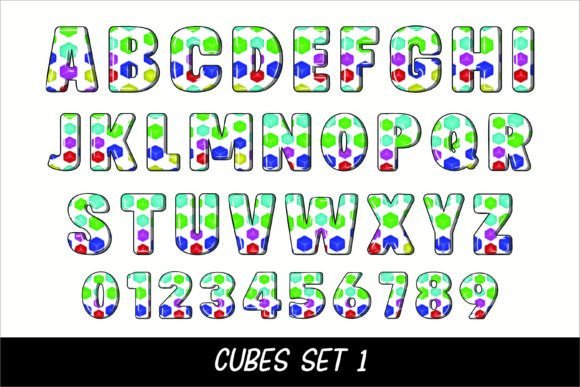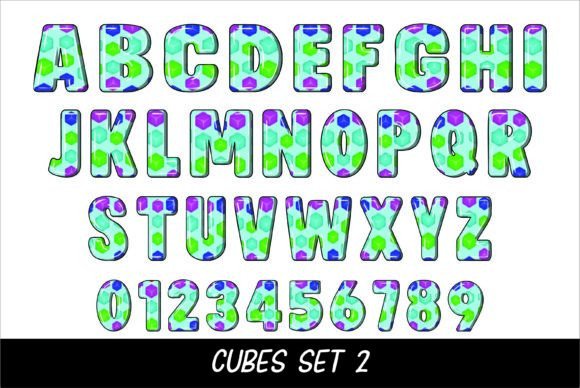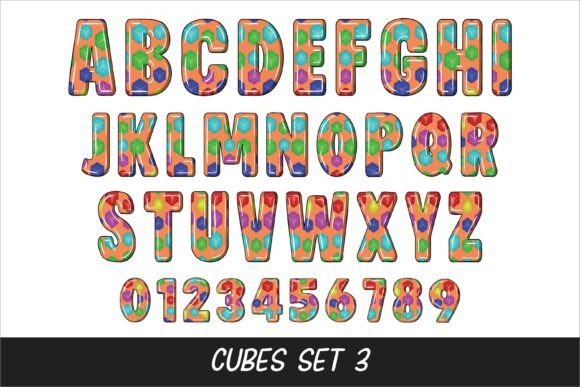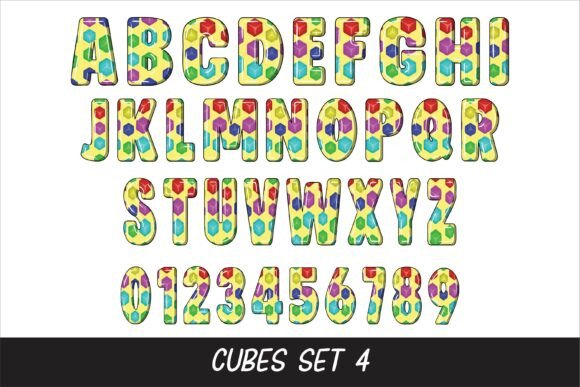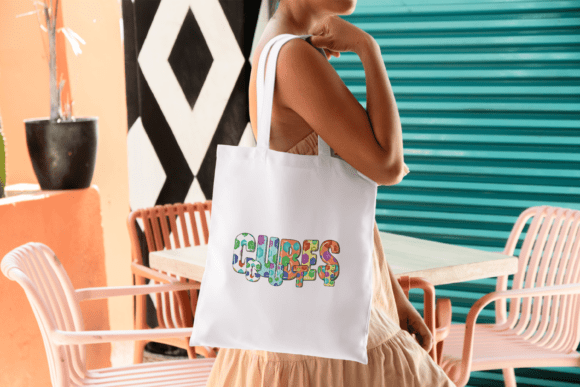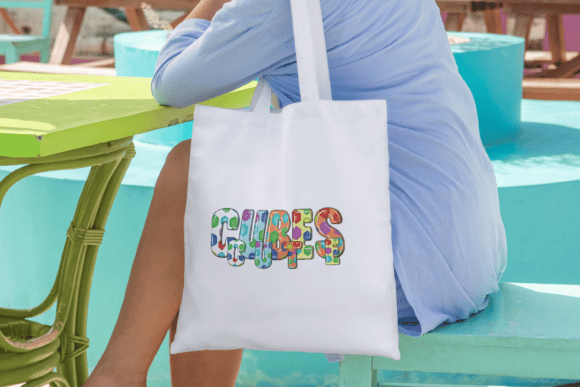
Introducing Cubes 3D Font: A Vibrant and Playful Typeface
Are you looking for a bold and eye-catching font to add a touch of fun and personality to your designs? Look no further than the Cubes 3D Font, a colorful and playful typeface that’s perfect for digital crafting, branding, and educational materials. In this article, we’ll explore the features and benefits of this unique font and how it can elevate your designs to the next level.
What is Cubes 3D Font?
Cubes 3D Font is a specialized, full-color 3D display color font that transforms each letter into a decorative, three-dimensional block filled with vibrant, patterned cubes. This highly decorative font is designed to create an immediately fun and dynamic aesthetic, making it ideal for designs that require a chunky, colorful, and engaging visual.
Key Features of Cubes 3D Font
- Bold and Playful Design: The Cubes 3D Font features a bold, rounded block structure that ensures high impact and makes it perfect for digital crafting, playful branding, and children’s educational materials.
- Vibrant and Patterned Cubes: Each letter is constructed from stacked blocks, creating a intricate, multi-colored cube pattern that makes the Cubes font a visual centerpiece.
- Easy to Use: This font is easy to use and can be applied to various design projects, from party announcements to educational materials.
Use Cases for Cubes 3D Font
The Cubes 3D Font is perfect for a variety of design projects, including:
- Digital Crafting: Add a touch of fun and personality to your digital crafts, such as printable art, party decorations, and gift tags.
- Playful Branding: Use the Cubes 3D Font to create eye-catching logos, business cards, and marketing materials that showcase your brand’s playful personality.
- Children’s Educational Materials: Make learning fun with the Cubes 3D Font, perfect for educational materials, such as alphabet charts, number lines, and activity sheets.
- Party Announcements: Create fun and festive party announcements, invitations, and decorations with the Cubes 3D Font.
Benefits of Using Cubes 3D Font
By using the Cubes 3D Font, you can:
- Add Visual Interest: The bold, colorful, and playful design of the Cubes 3D Font is sure to grab attention and add visual interest to your designs.
- Create Engaging Designs: The intricate, multi-colored cube pattern creates a dynamic aesthetic that’s perfect for engaging your audience and making your designs more memorable.
- Save Time: With the Cubes 3D Font, you can create professional-looking designs quickly and easily, without requiring extensive design experience.
In conclusion, the Cubes 3D Font is a vibrant and playful typeface that’s perfect for designers and crafters looking to add a touch of fun and personality to their designs. With its bold, colorful, and engaging design, this font is ideal for digital crafting, playful branding, children’s educational materials, and party announcements. By using the Cubes 3D Font, you can create visually stunning designs that are sure to grab attention and leave a lasting impression.
Get Ready to Elevate Your Designs with Cubes 3D Font
Whether you’re a designer, crafter, or educator, the Cubes 3D Font is a versatile and valuable asset that can help you create engaging and memorable designs. So why wait? Get ready to elevate your designs with the Cubes 3D Font and discover a world of creative possibilities!